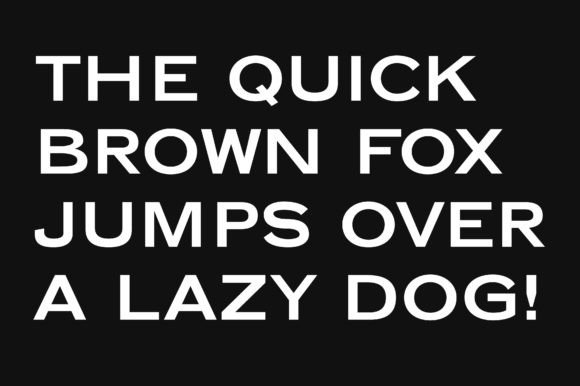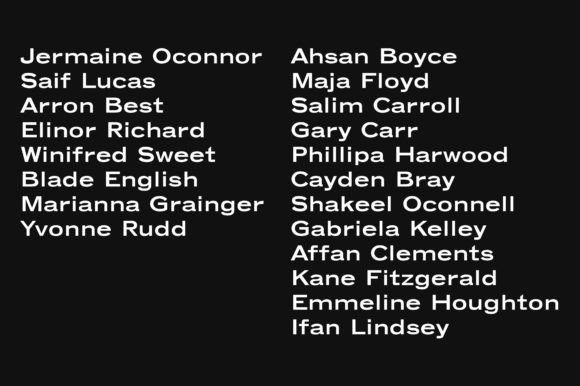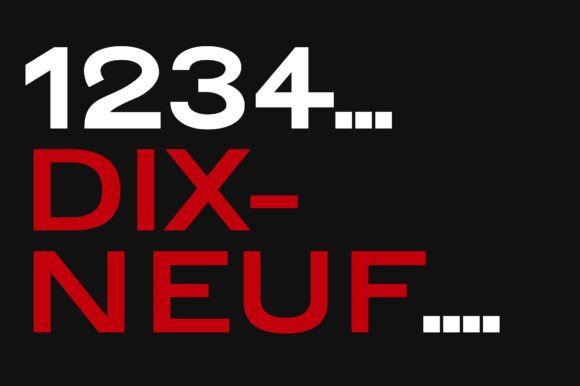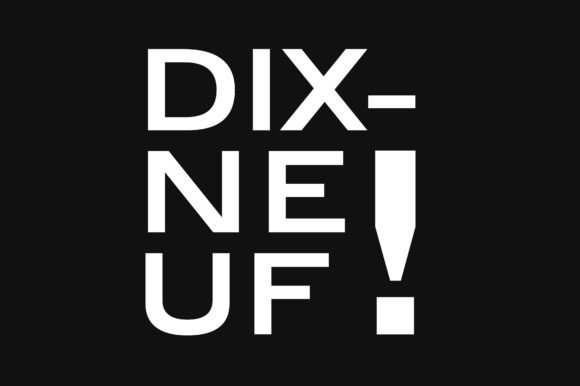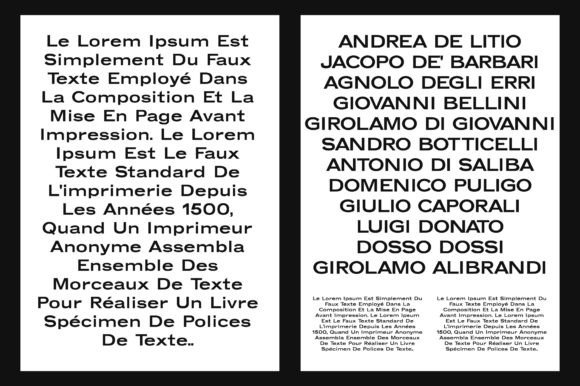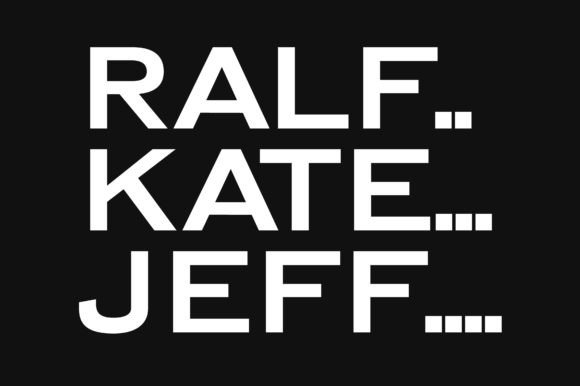
I still remember the frustration of working on a logo design project, only to hit a roadblock when it came to choosing the right font. My client wanted something modern, yet elegant; something that would make their brand stand out. I spent hours scouring the internet, trying out different fonts, but none seemed to fit the bill. That was until I stumbled upon Dix-Neuf Font ✨. In this article, I’ll share my experience with this amazing typeface and explore its features, uses, and alternatives.
A First Impression: What I Love About Dix-Neuf Font
Dix-Neuf Font is a cool, minimalist, and geometric sans serif typeface that has quickly become a staple in my design toolkit. Here are some things I love about it:
- ✅ Versatility: Dix-Neuf Font is an incredibly versatile typeface that can be used for a wide range of design projects, from logo designs and branding materials to packaging and social media posts.
- ✨ Clean and Modern Aesthetic: The font’s geometric shape and minimalist design make it perfect for creating modern and sleek designs.
- 💡 Legibility: Dix-Neuf Font is highly legible, even at small sizes, making it ideal for use in a variety of contexts.
While Dix-Neuf Font is an excellent typeface, it’s not without its quirks. Here are a few things to keep in mind:
- ⚠️ Limited Emotional Expression: As a sans serif typeface, Dix-Neuf Font can sometimes come across as a bit sterile or lacking in emotional expression.
- 🤔 Glyph Limitations: While the font has a wide range of glyphs, it may not have every special character or symbol you need.
Dix-Neuf Font was designed with the goal of creating a modern, yet timeless typeface that’s perfect for a wide range of design projects. The font’s geometric shape and minimalist design are inspired by the works of famous designers like Paul Rand and Herb Lubalin. The font’s creator aimed to create a typeface that’s both elegant and versatile, making it perfect for use in logo designs, branding materials, and more.
| Font Name | Dix-neuf Font |
| Author | Minimalistartstudio |
| What is Dix-Neuf Font? | Dix-Neuf Font is a cool, minimalist, and geometric sans serif typeface that’s perfect for a wide range of design projects. |